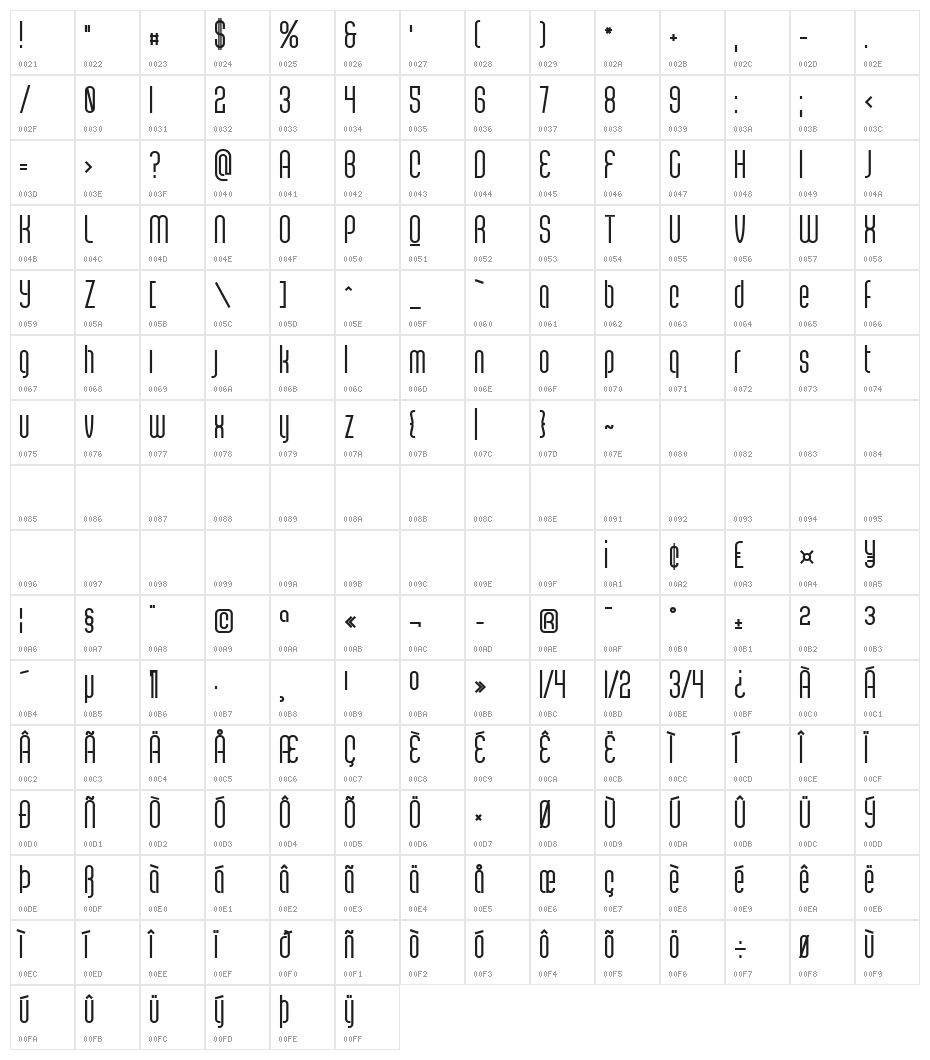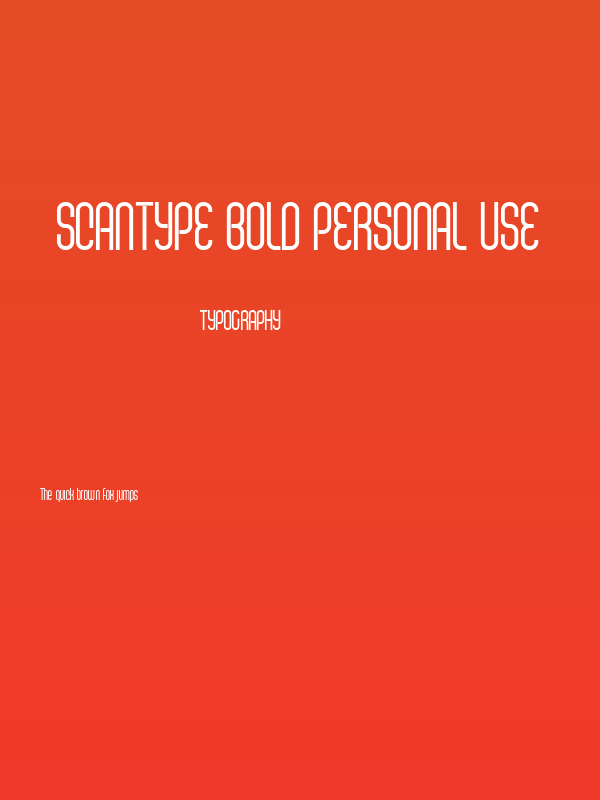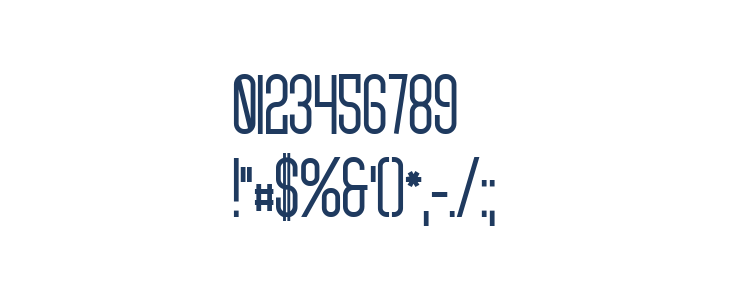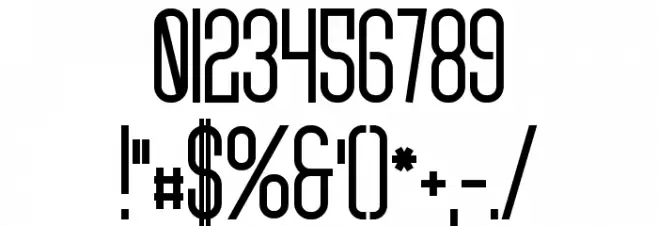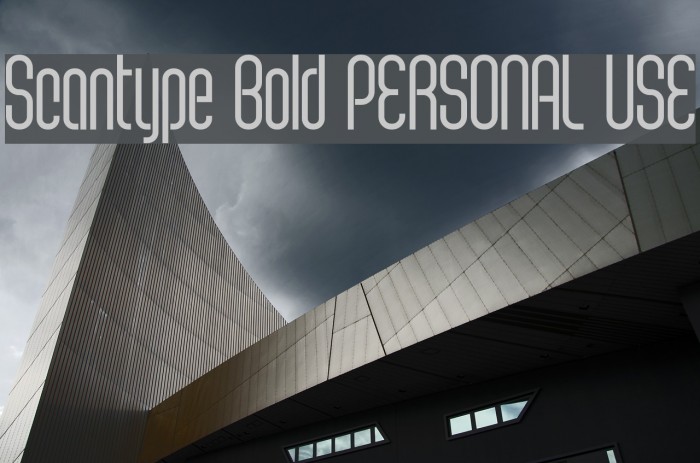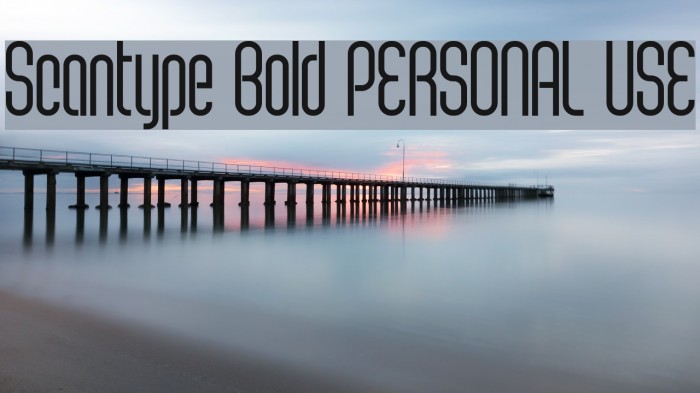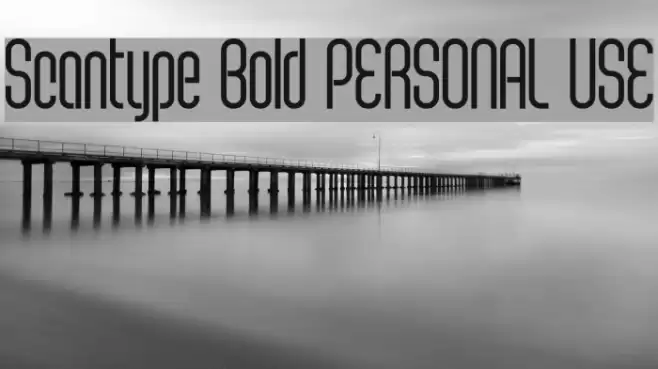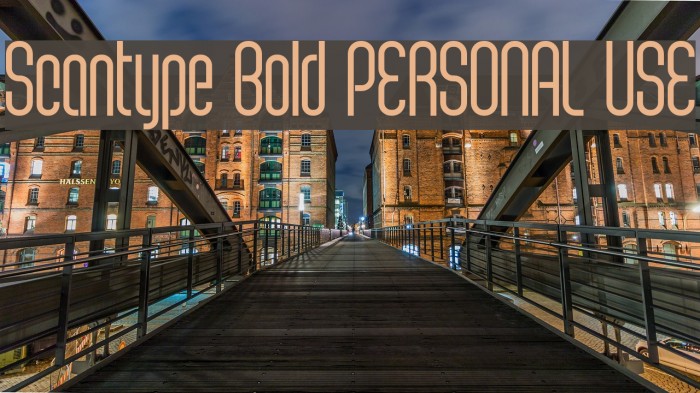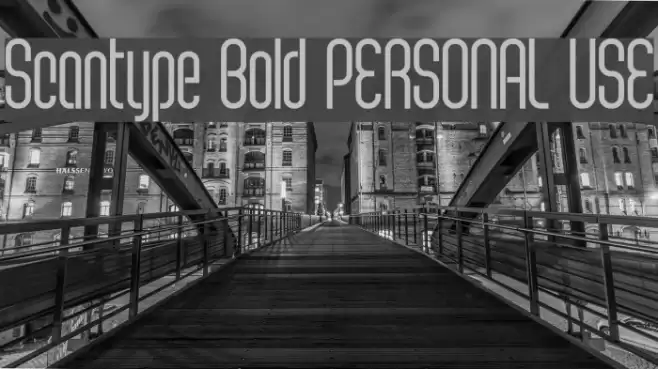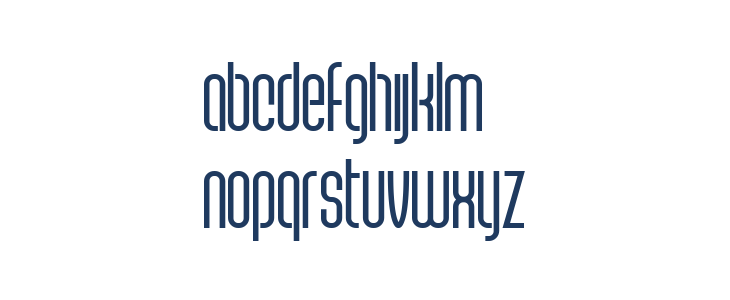
Scantype Bold PERSONAL USE Font
Scantype Bold PERSONAL USE Description
This font features a modern and sleek design with elongated and narrow letterforms. The characters are uniformly tall and maintain a consistent width, giving it a condensed appearance. The vertical strokes are prominent, while the horizontal strokes are minimal, creating a high contrast between the two. This design choice enhances readability while maintaining a unique and stylish look. The font includes a full set of uppercase and lowercase letters, numbers, and a variety of special characters, making it versatile for different applications.
| Proposed Projects | Ideal for branding, posters, and headlines where a modern and stylish look is desired. |